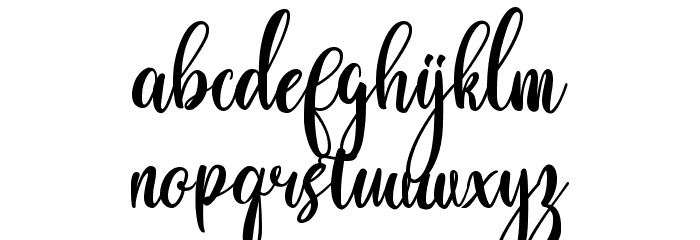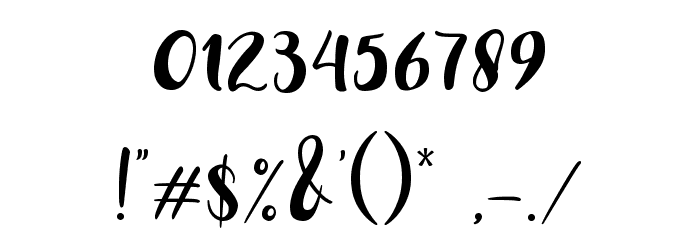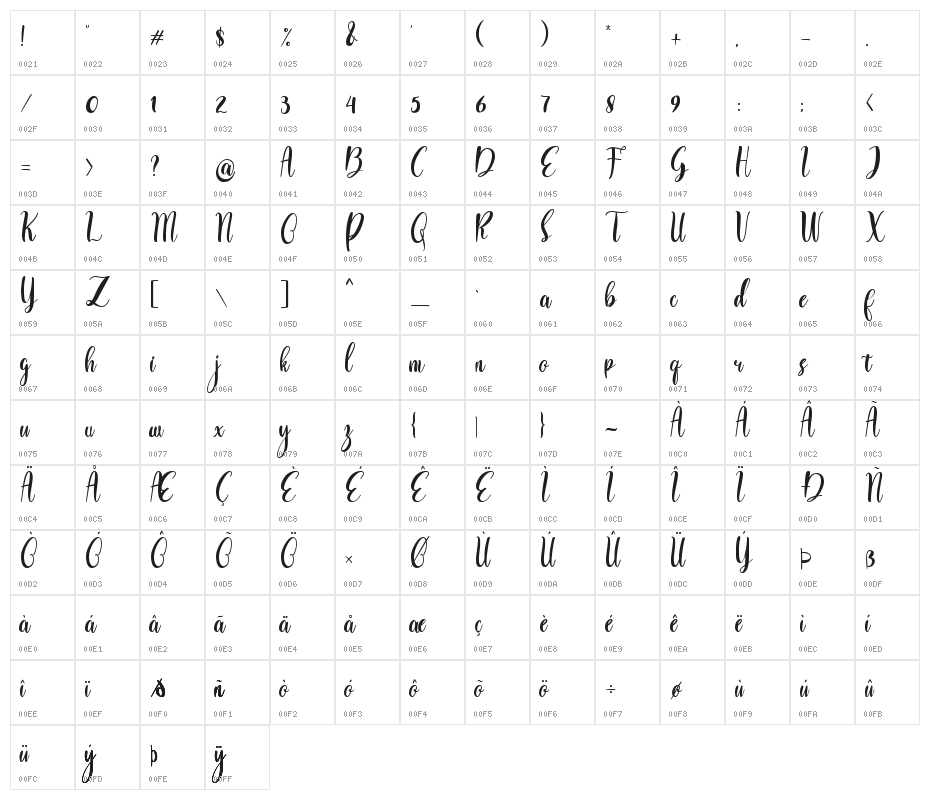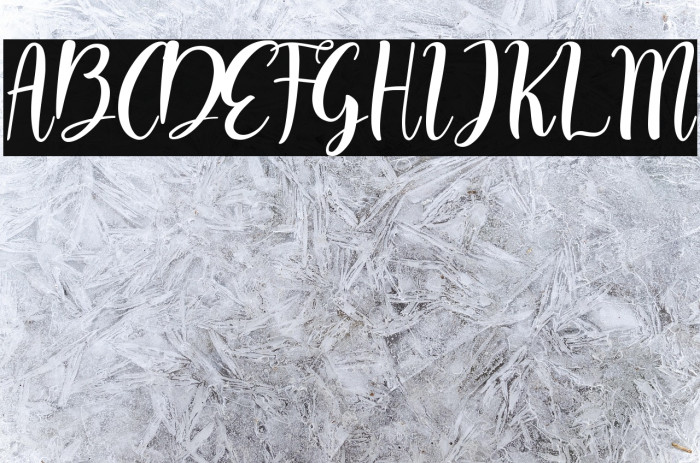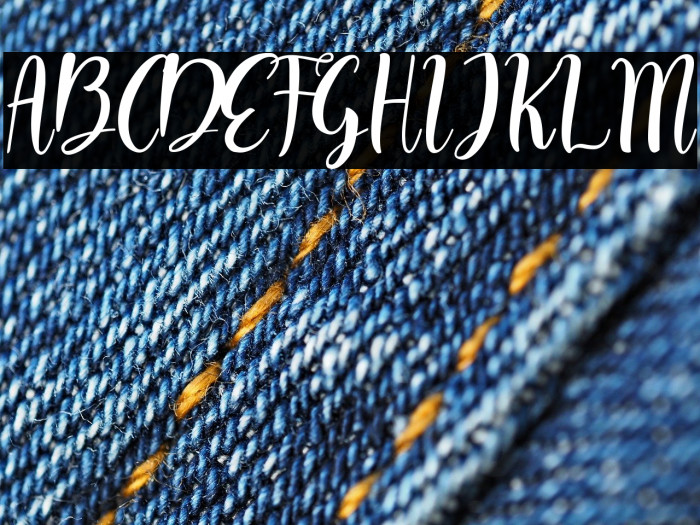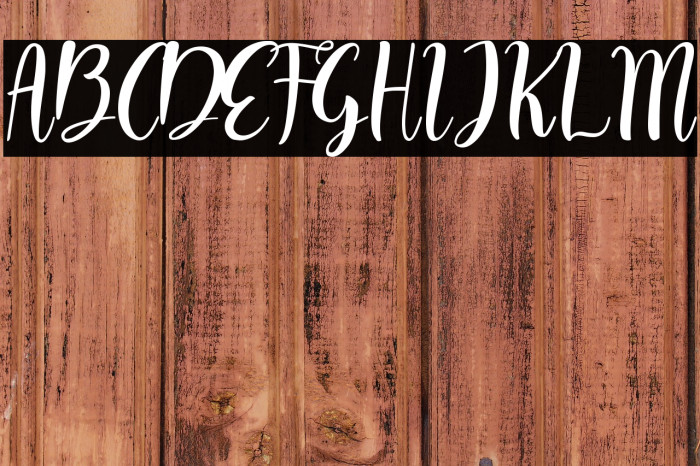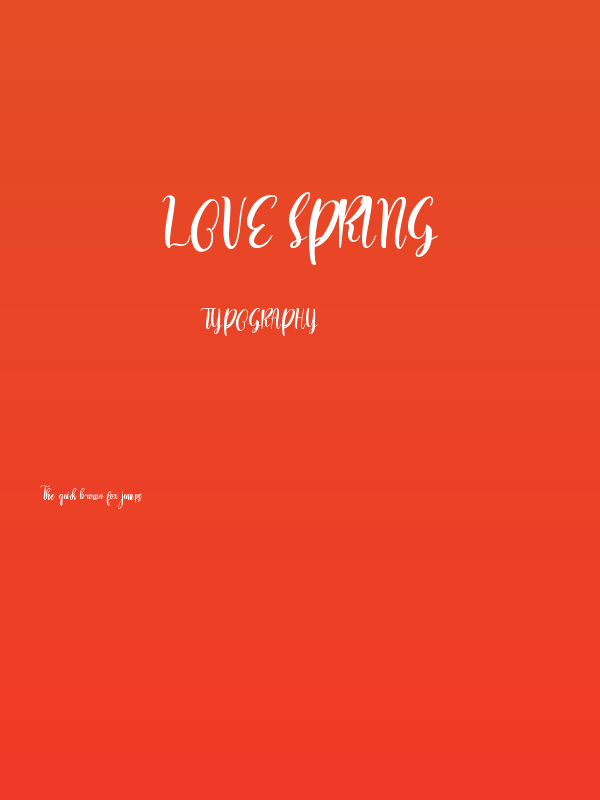
love spring Font
This font exudes a playful and elegant script style, characterized by its fluid, cursive strokes and a sense of movement. The uppercase letters are bold and sweeping, with a slight slant that adds to their dynamic appearance. The lowercase letters maintain a consistent flow, featuring loops and curves that enhance their handwritten feel. The numerals are clear and distinct, matching the overall aesthetic with their rounded and slightly exaggerated forms. Special characters are well-integrated, maintaining the same lively and expressive quality. This font is perfect for projects that require a touch of sophistication and charm.
A playful and elegant script font with fluid, cursive strokes.
- Font: love spring
- Proposed Projects: Ideal for wedding invitations, greeting cards, branding, and logo design.
- Category: Script
- Use Case: Logos, Headlines, Invitations